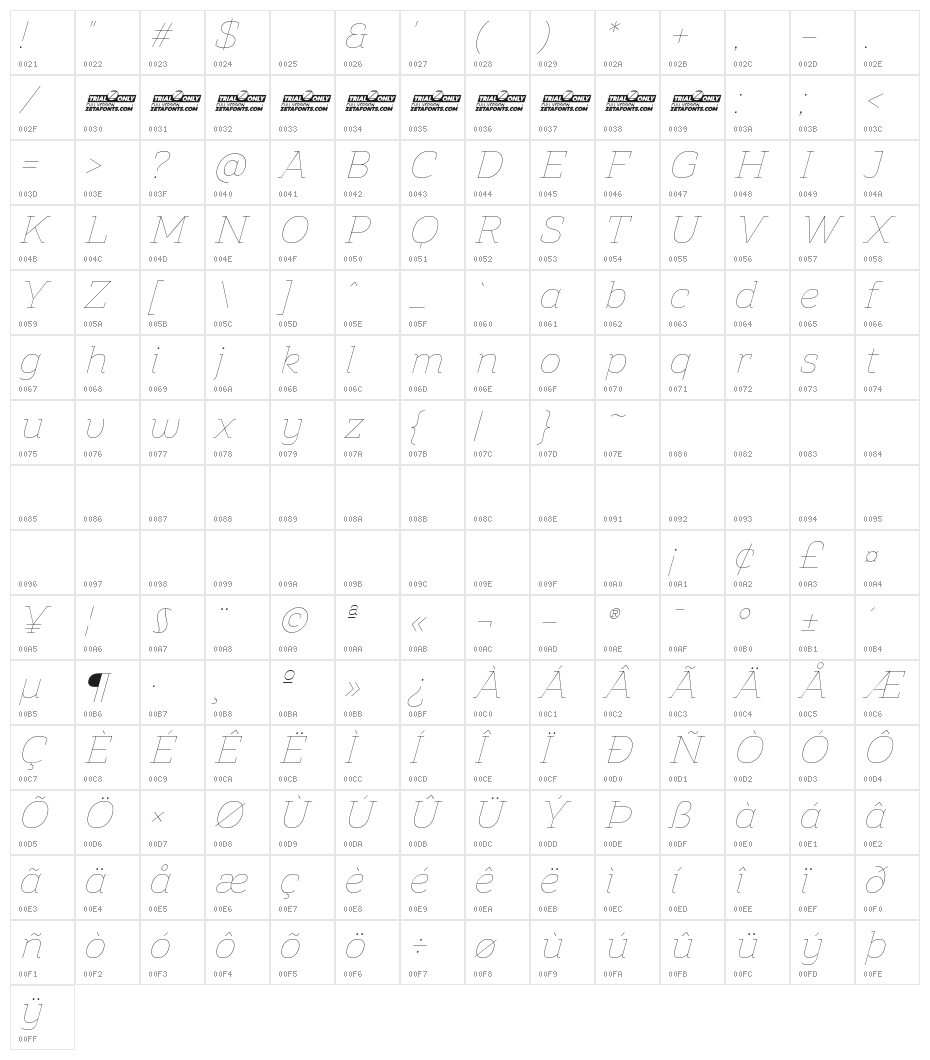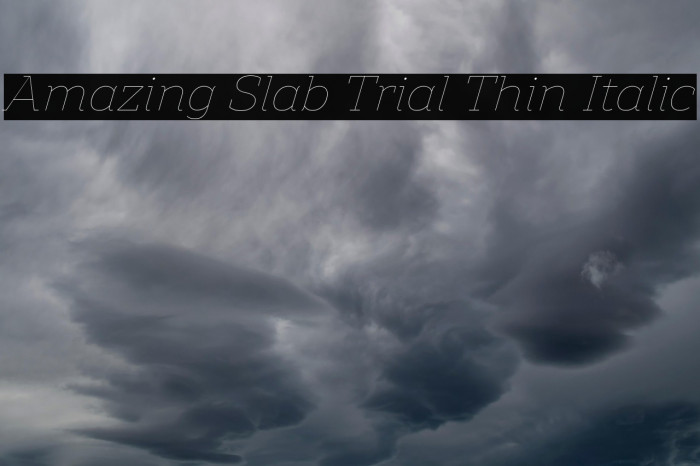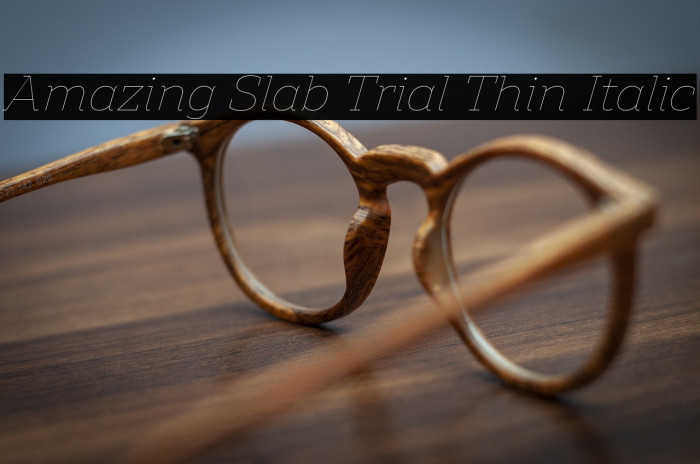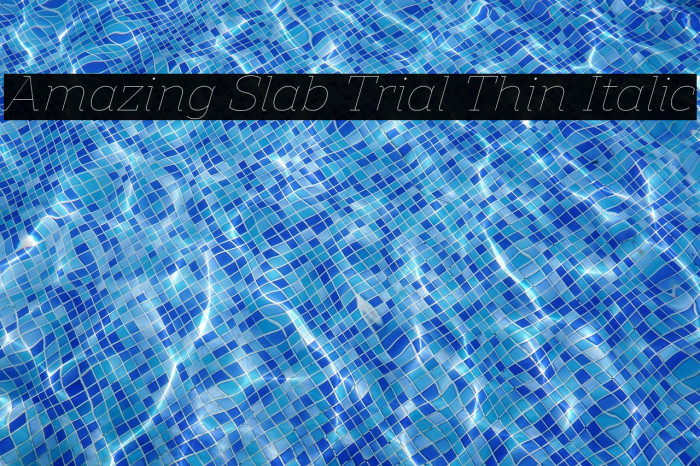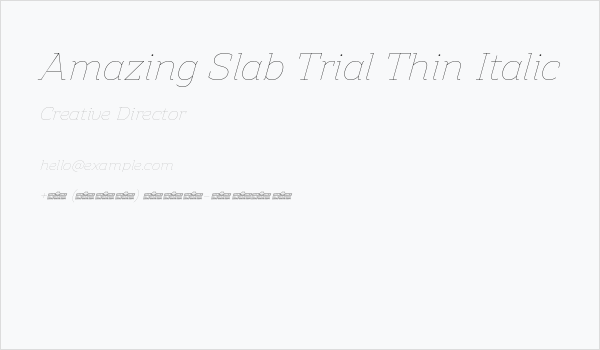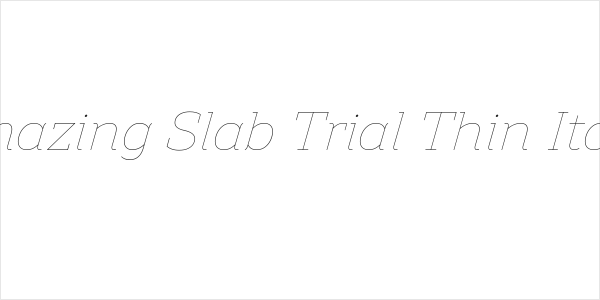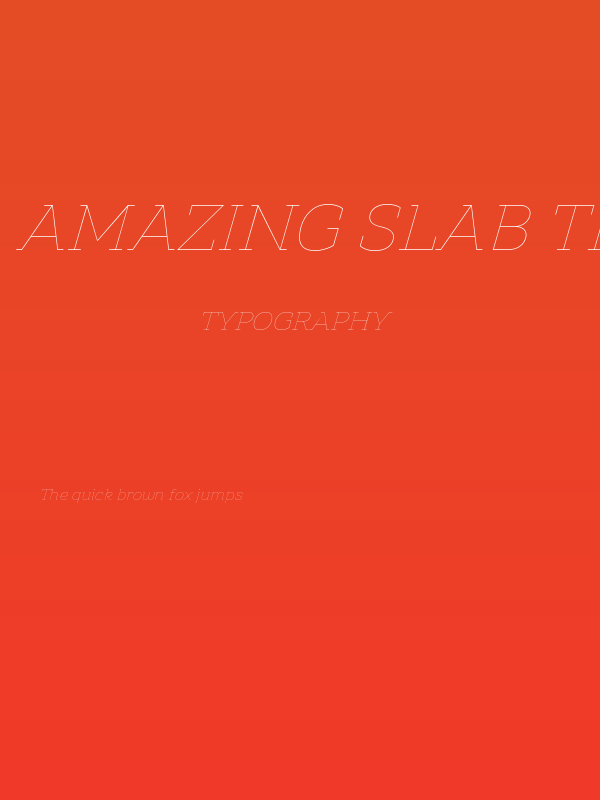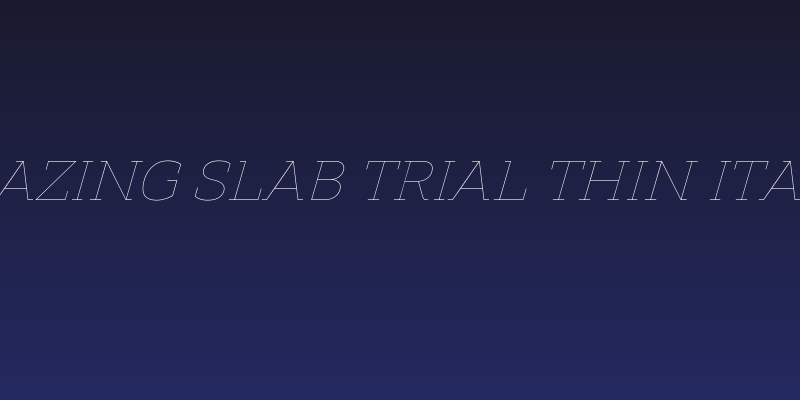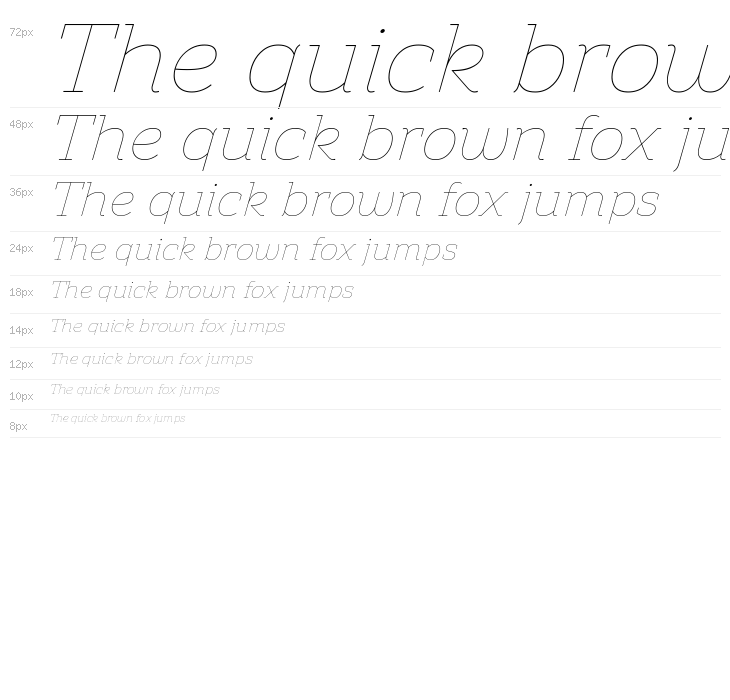
Amazing Slab Trial Thin Italic Font
Amazing Slab Trial Thin Italic Description
This font features a refined and elegant design with a thin, italicized style. The characters are crafted with a delicate touch, showcasing a modern twist on traditional serif elements. The strokes are consistently thin, providing a light and airy feel, while the italic slant adds a sense of movement and sophistication. The uppercase and lowercase letters maintain a cohesive look, with smooth curves and subtle serifs that enhance readability. The numerals and special characters are designed to complement the alphabet, maintaining the font's overall graceful aesthetic.